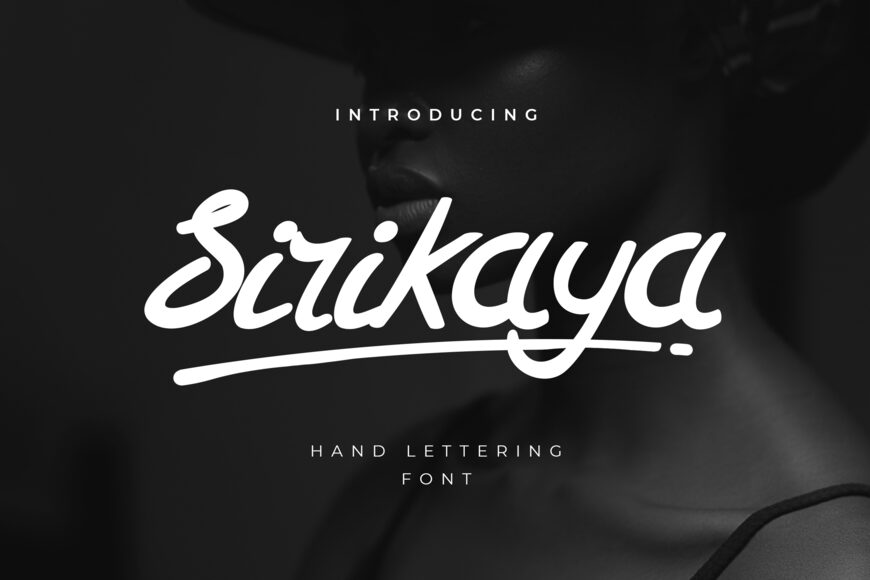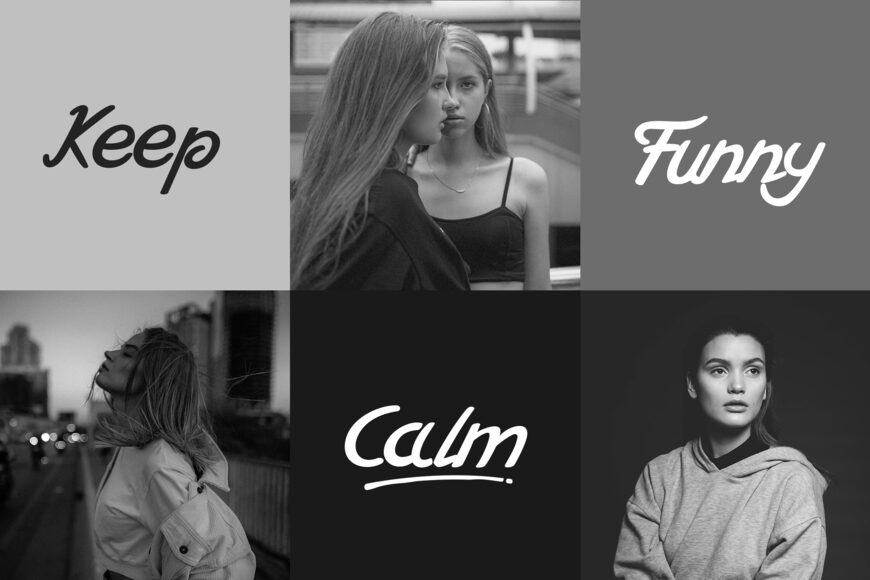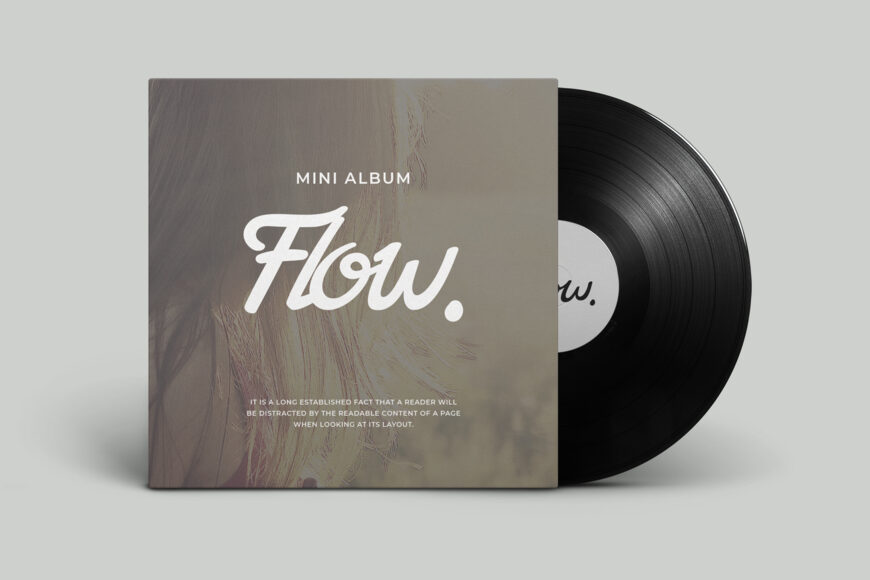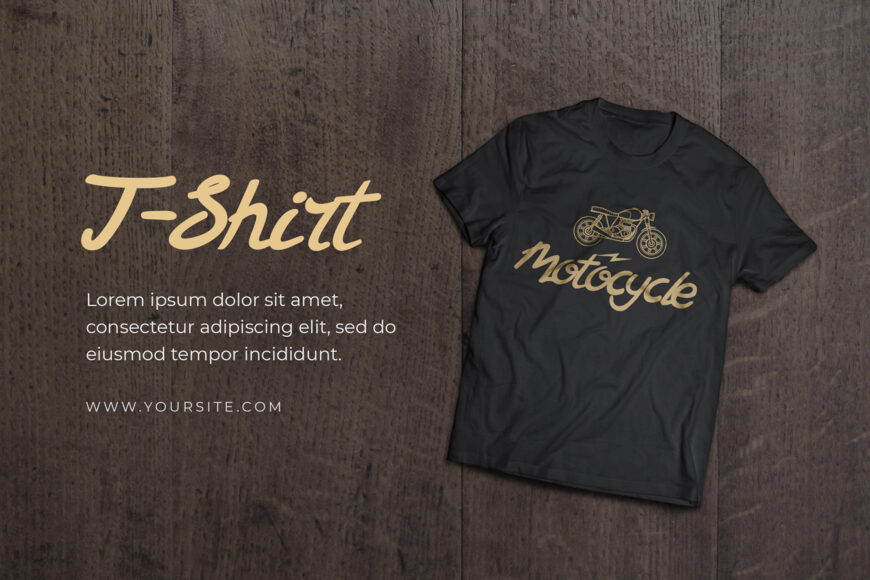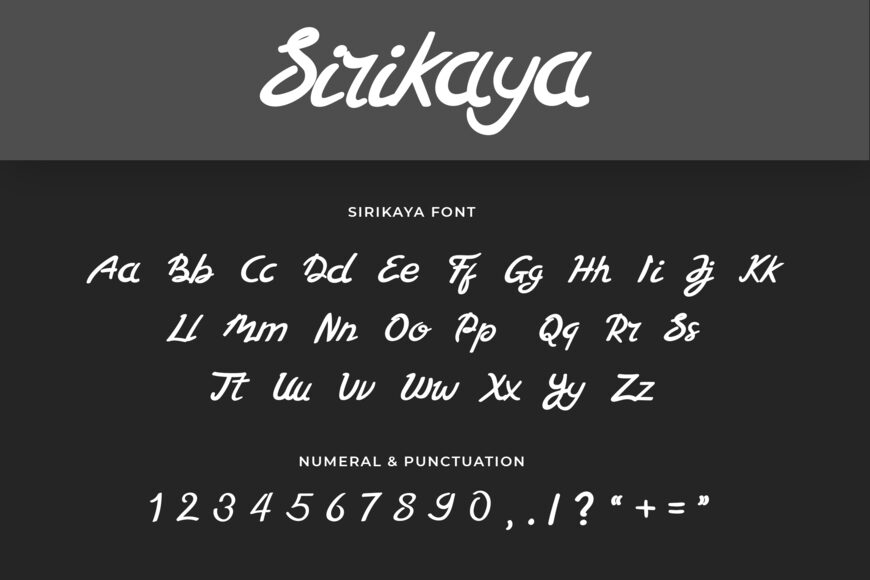
Sirikaya Font
Sirikaya is a unique handwritten font. Wether looking for fonts for social media or calligraphy scripts for DIY projects, Sirikaya will turn any creative idea into a true piece of art!